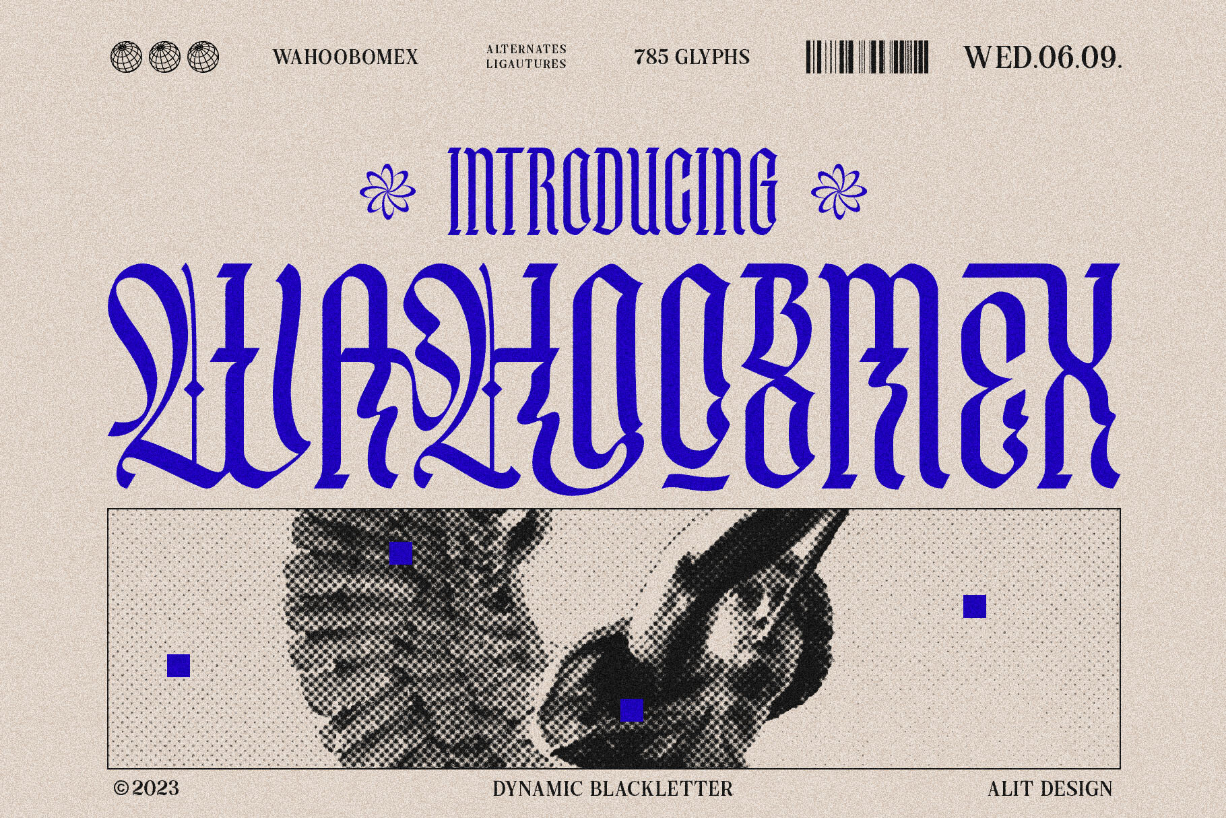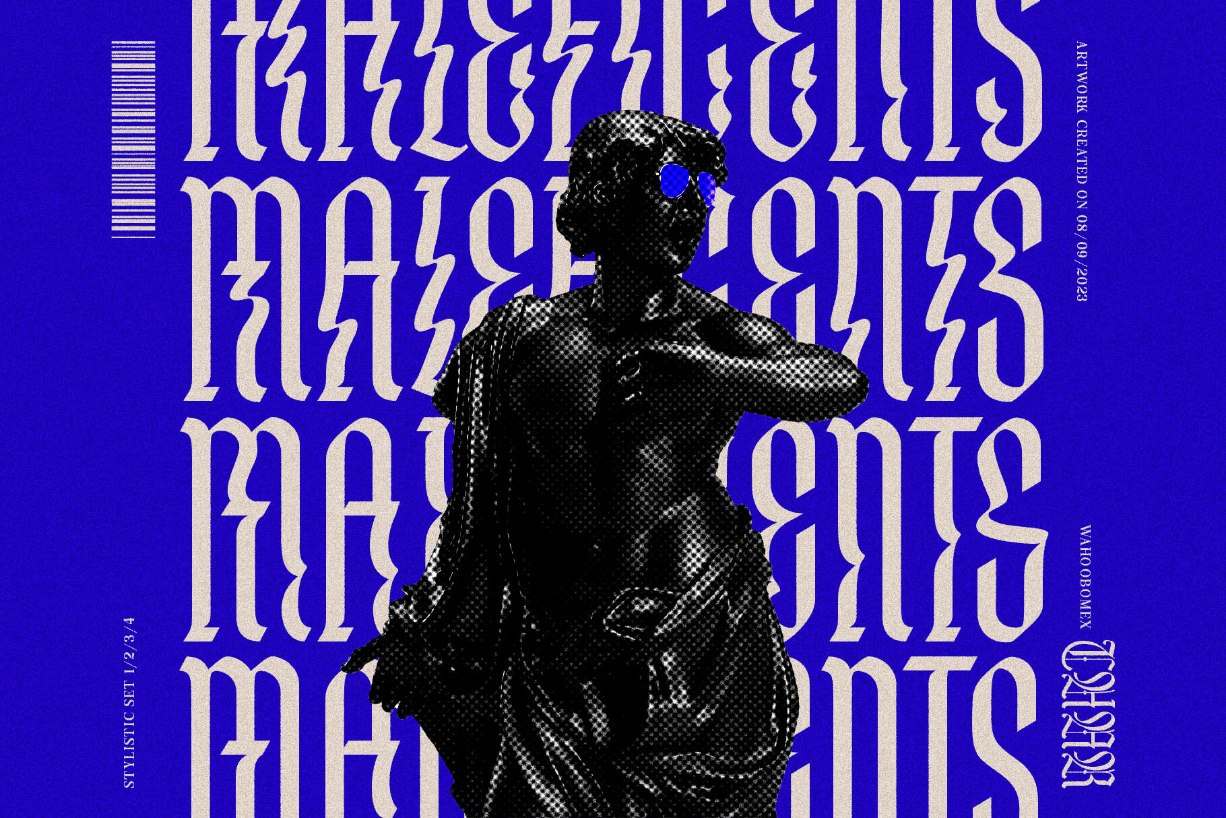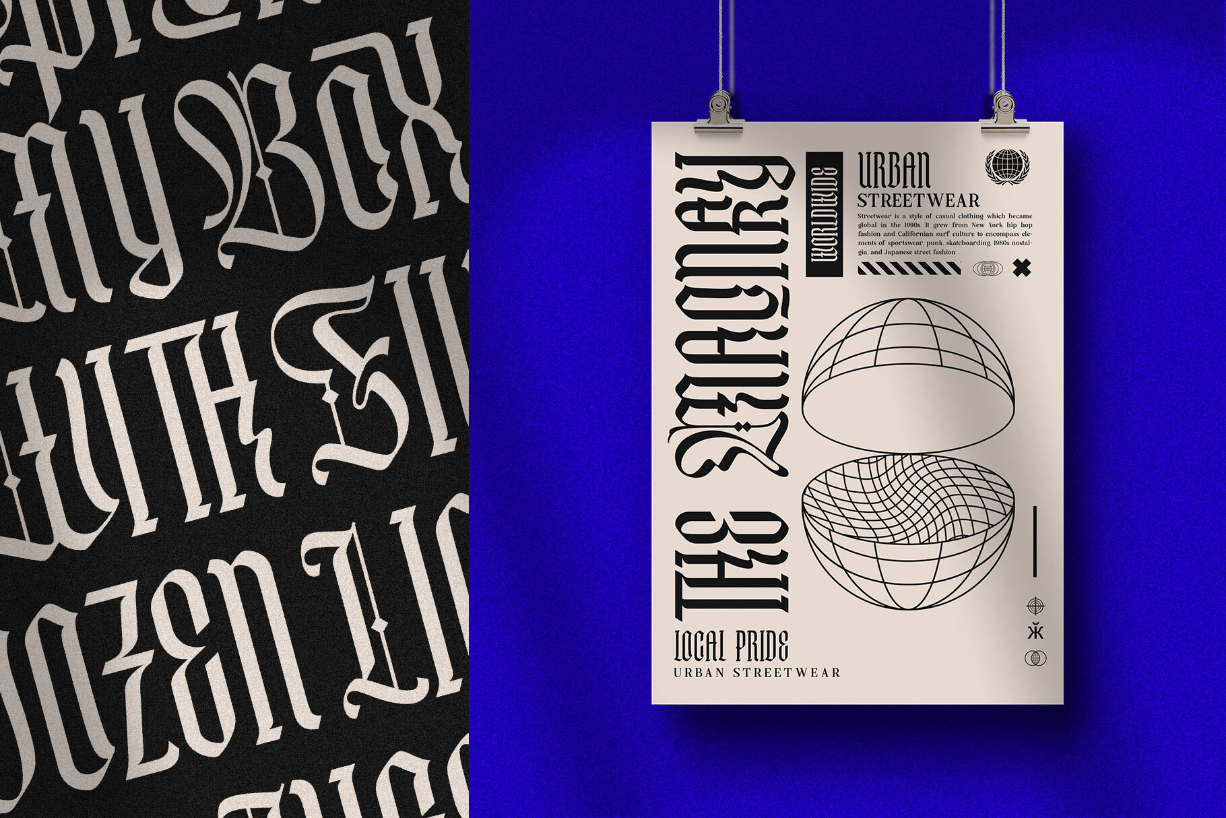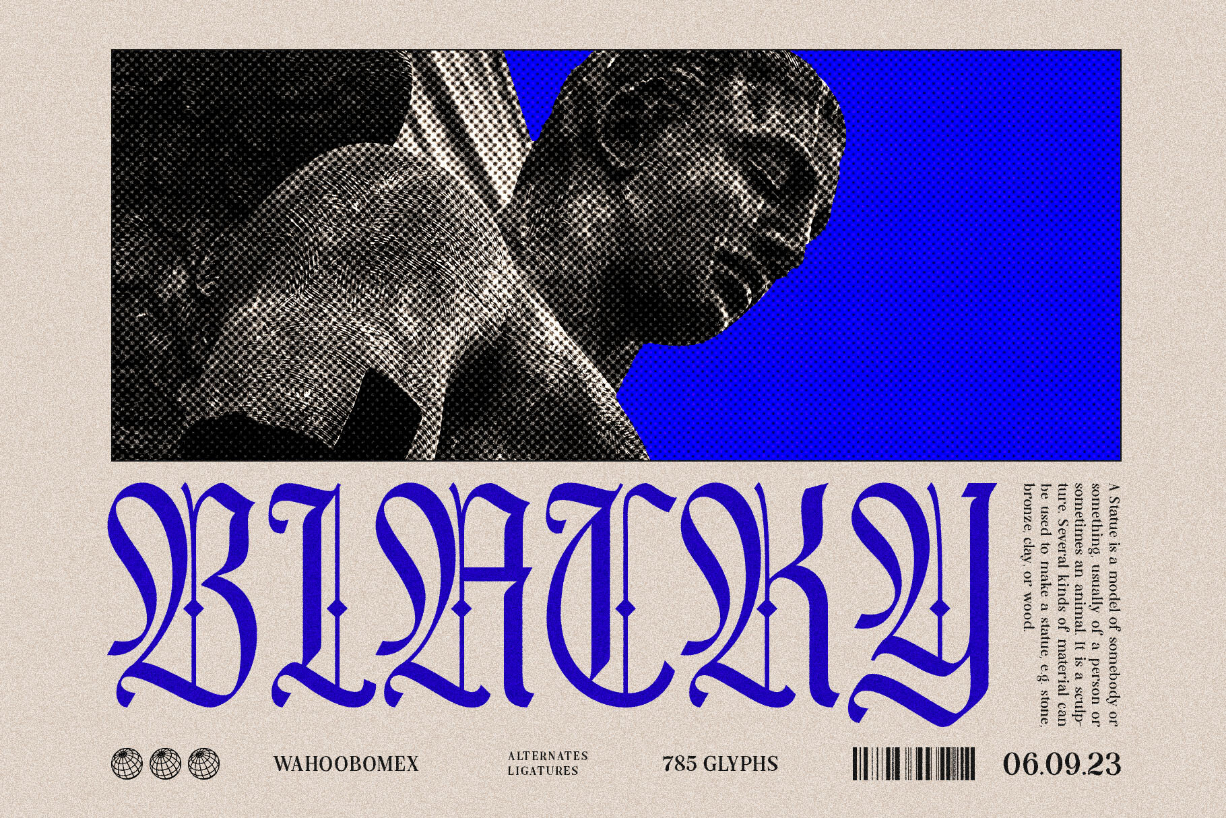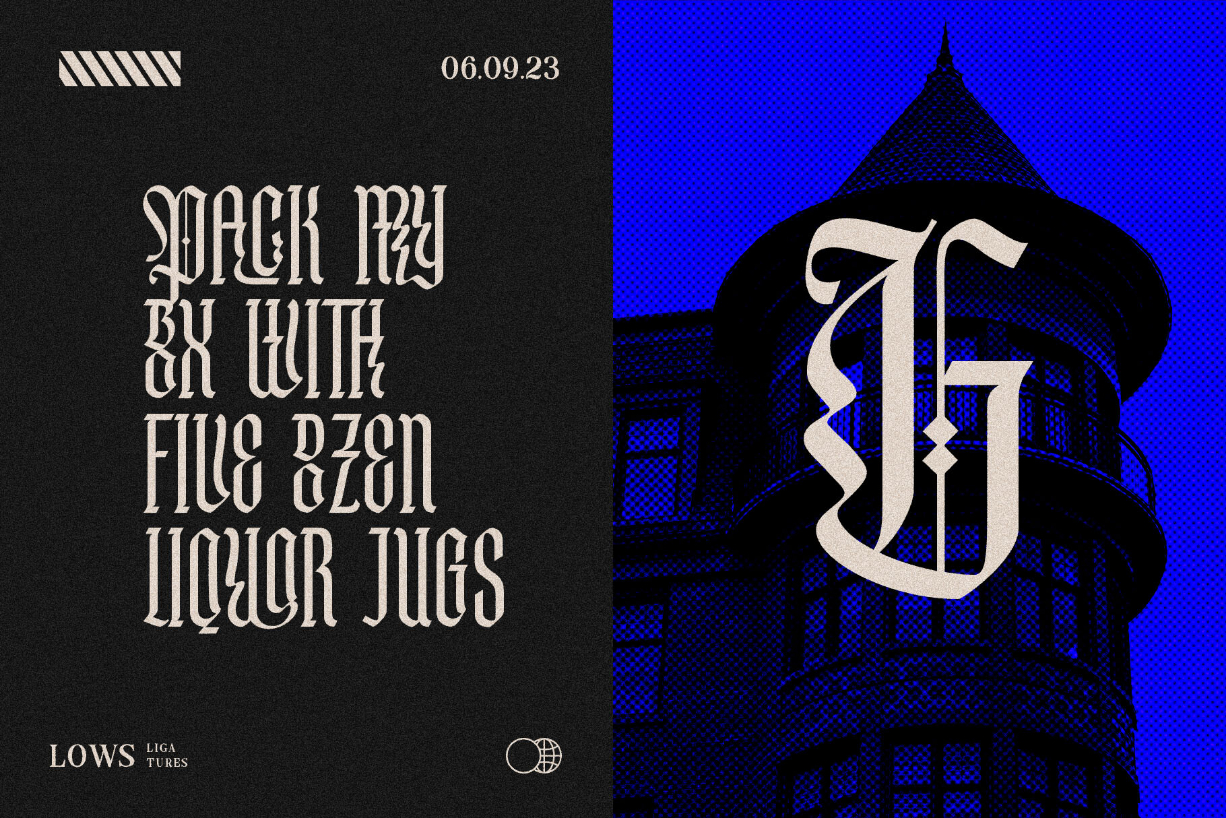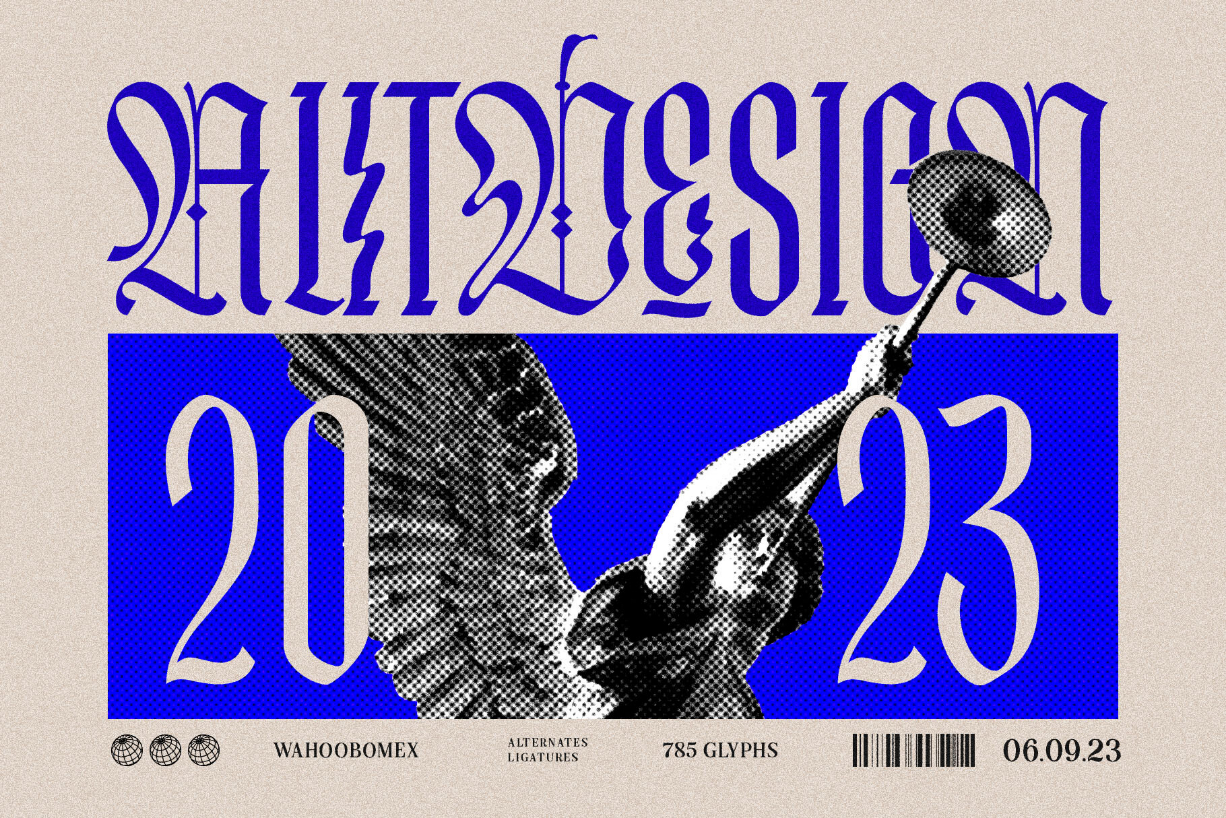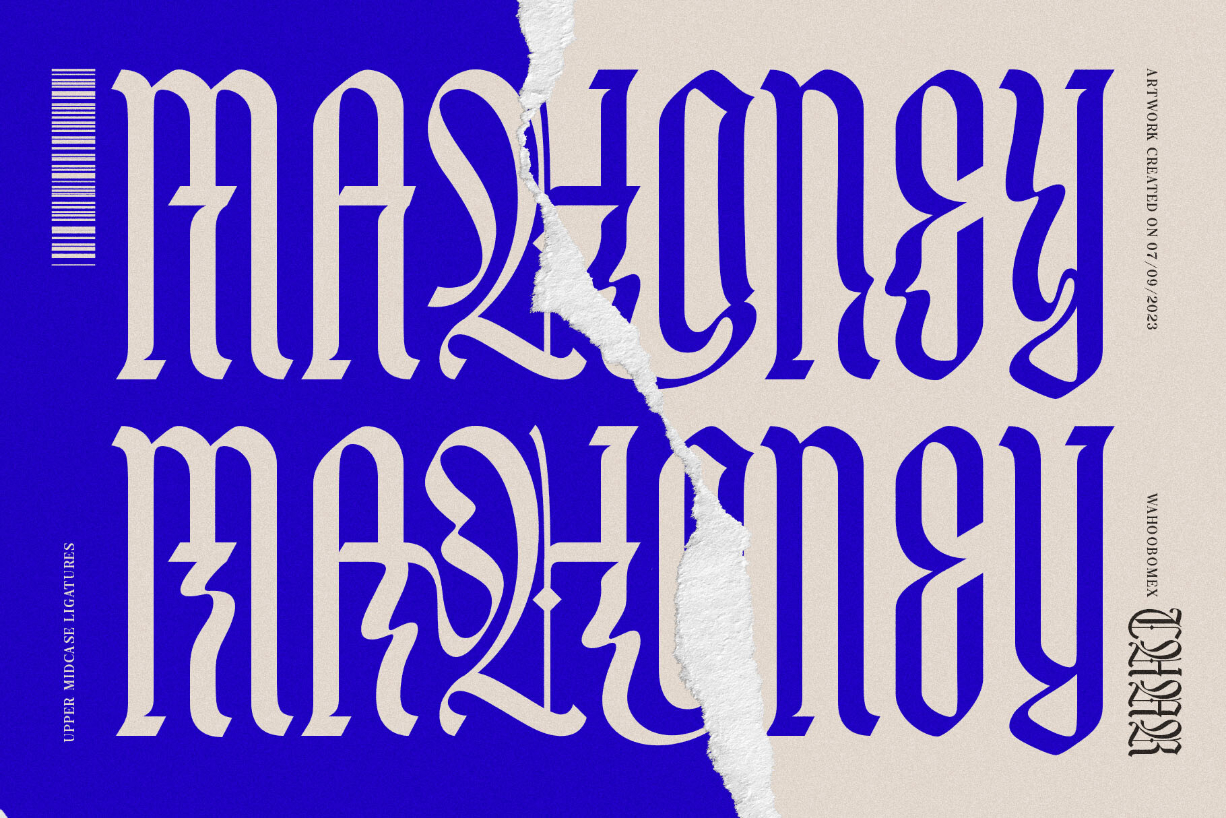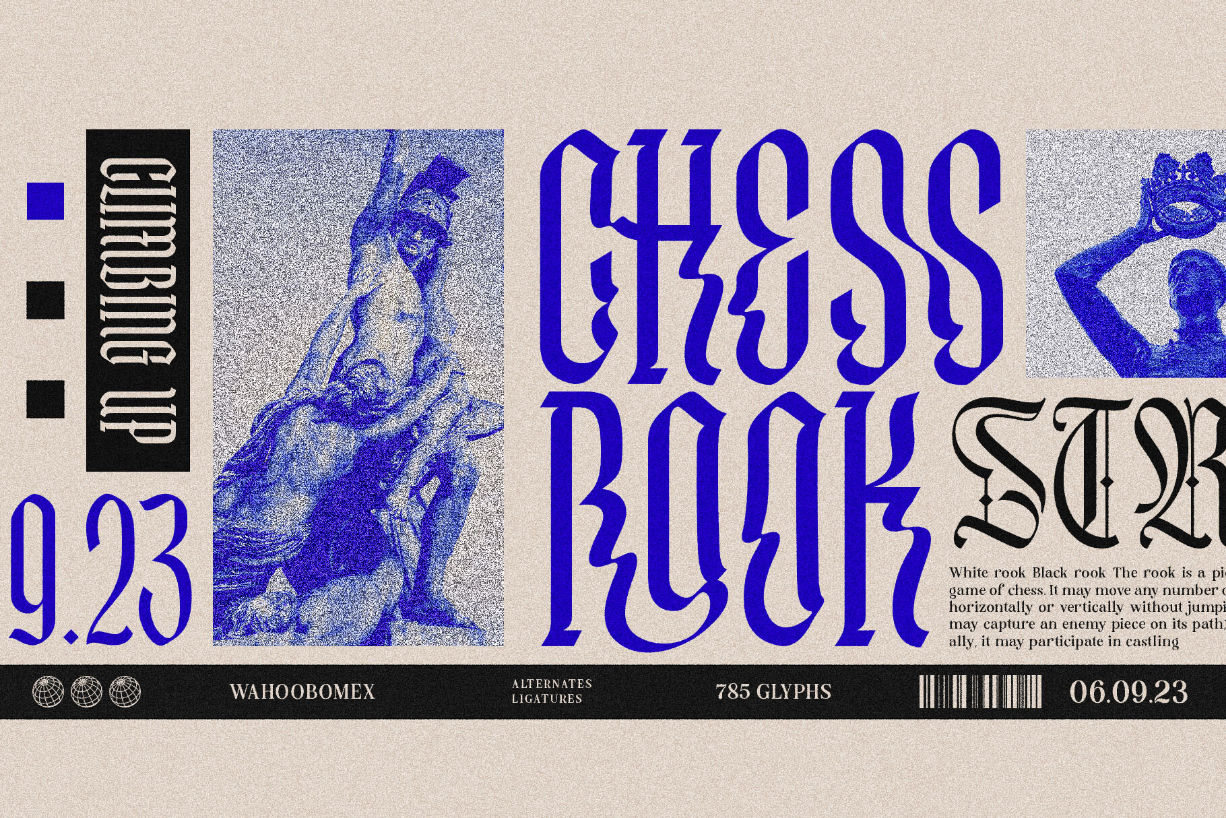
Wahoobomex Font
About Wahoobomex Font
Are you looking for a font that combines the timeless charm of blackletter typefaces with a modern twist? Look no further than the Wahoobomex Dynamic Blackletter Font. This remarkable typeface strikes the perfect balance between tradition and contemporary design, making it ideal for a wide range of creative projects.